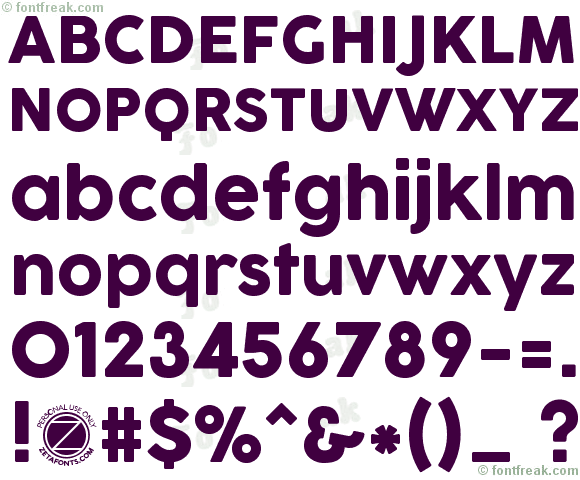
COCOGOOSE
COCOGOOSE is a unique display font crafted by the innovative kmzero font foundry. This font falls within the sans-serif category, characterized by its clean lines and contemporary feel. The visual characteristics of COCOGOOSE include a bold stroke weight that creates a strong presence, while its smooth edges add a touch of modern elegance. The contrast is subtle, making it versatile for a variety of applications, and the generous spacing between characters enhances readability, ensuring that each letter stands out.
This font is particularly well-suited for use cases such as wedding invitations, where its stylish yet approachable design can add a personalized touch. Additionally, COCOGOOSE shines on movie posters, delivering an eye-catching title that captures attention. Restaurant menus can benefit from its clean aesthetic, offering patrons a visually appealing look at the offerings. Content creators looking to make their social media graphics pop will find this font an excellent choice for promotional materials, as it strikes a balance between modernity and warmth.
The target audience for COCOGOOSE includes graphic designers seeking an impactful display typeface, small business owners aiming to elevate their branding, and content creators in search of a versatile font for various projects. The font's freeware license makes it accessible, allowing creatives to incorporate it into their work without breaking the bank.
What truly sets COCOGOOSE apart is its ability to blend simplicity with a strong visual impact. Its modern design appeals to a broad audience, making it a fantastic choice for anyone looking to make a statement. For those interested, a COCOGOOSE font free download is available, inviting users to explore its potential in their design endeavors.